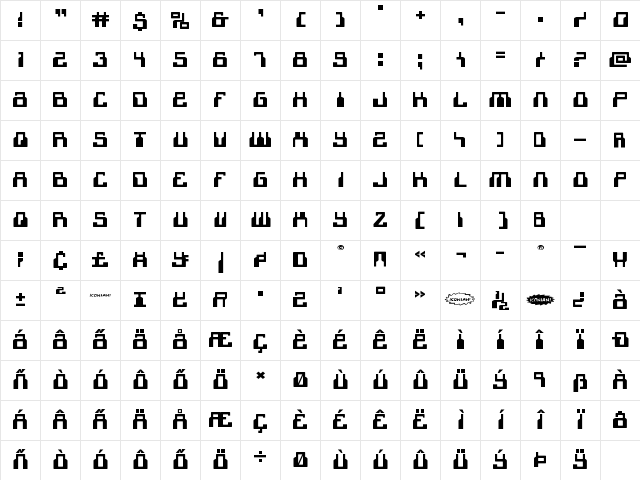
1968 Odyssey Expanded Expanded
Style: Expanded
Complete 1968 Odyssey Expanded glyph index. Displaying only characters natively supported by 1968 Odyssey Expanded font.
Design Context for 1968 Odyssey Expanded
1968 Odyssey Expanded is a composed and adaptable typeface that performs quietly and consistently across a wide range of design contexts.